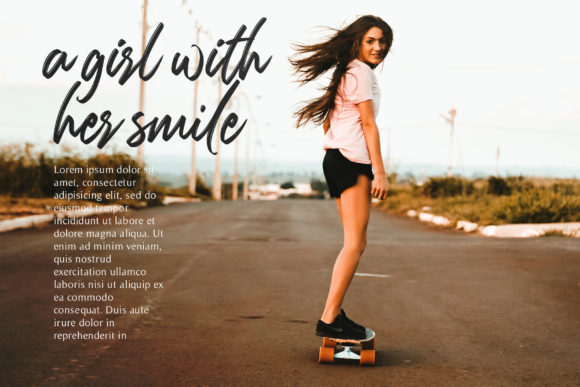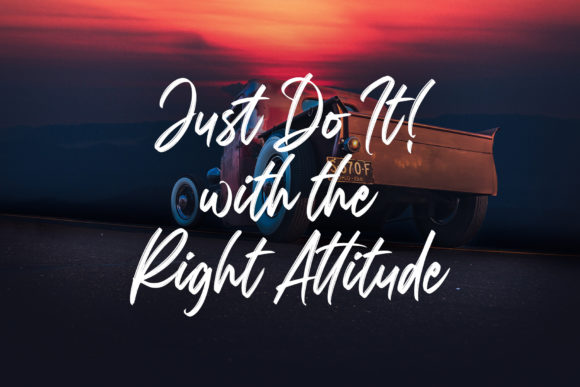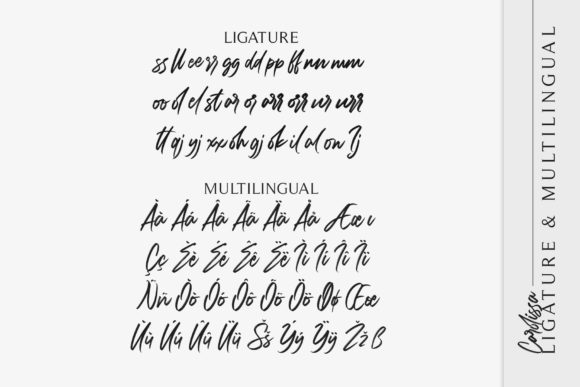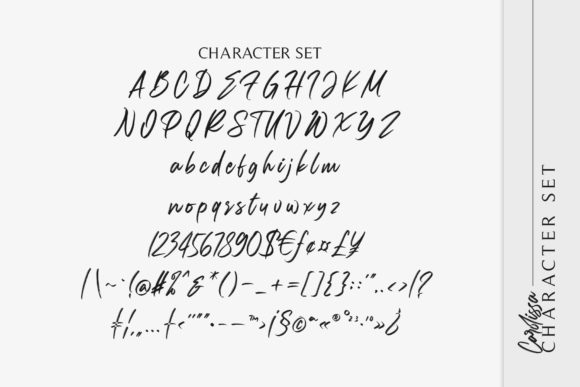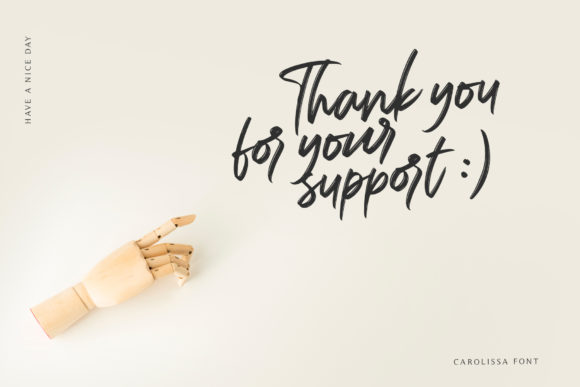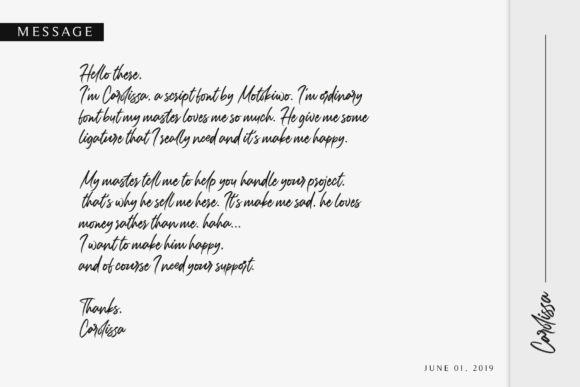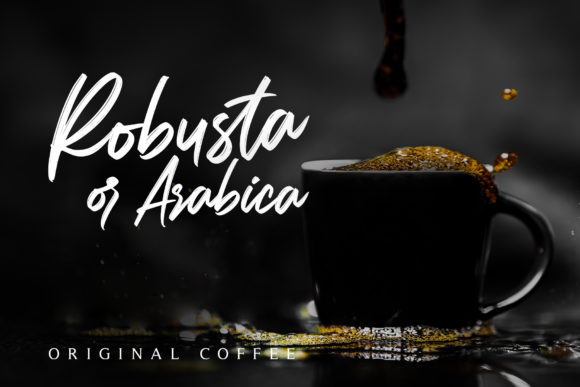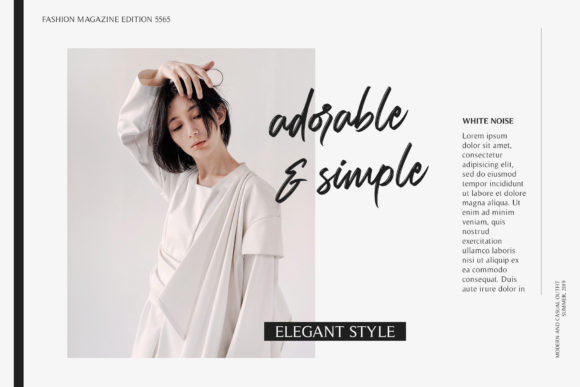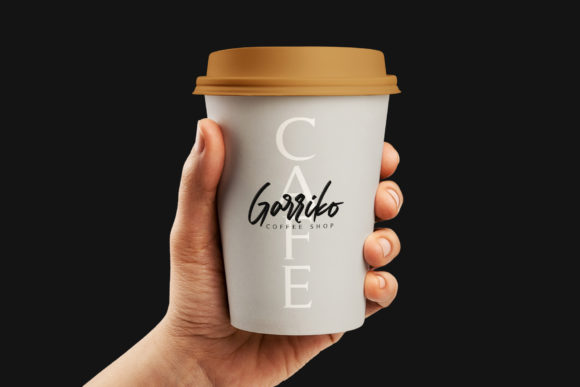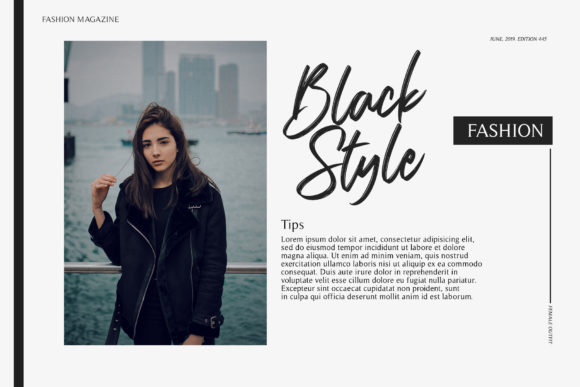
Carolissa Font
About Carolissa Font
Carolissa is a playful handwritten brush font that is simple, classy, and suitable for various design projects. With dynamic and spontaneous flow gesture, Carolissa will add more drama to your project.